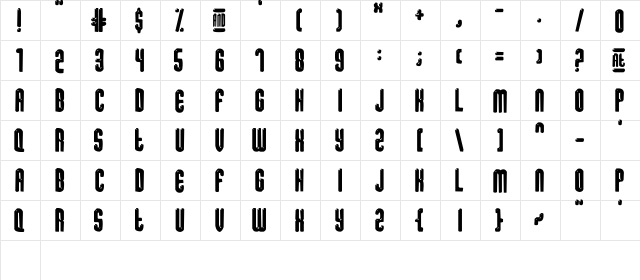
sugar [dissolve] normal
Design Context for sugar [dissolve] Typeface
sugar [dissolve] is a composed and adaptable typeface that performs quietly and consistently across a wide range of design contexts.